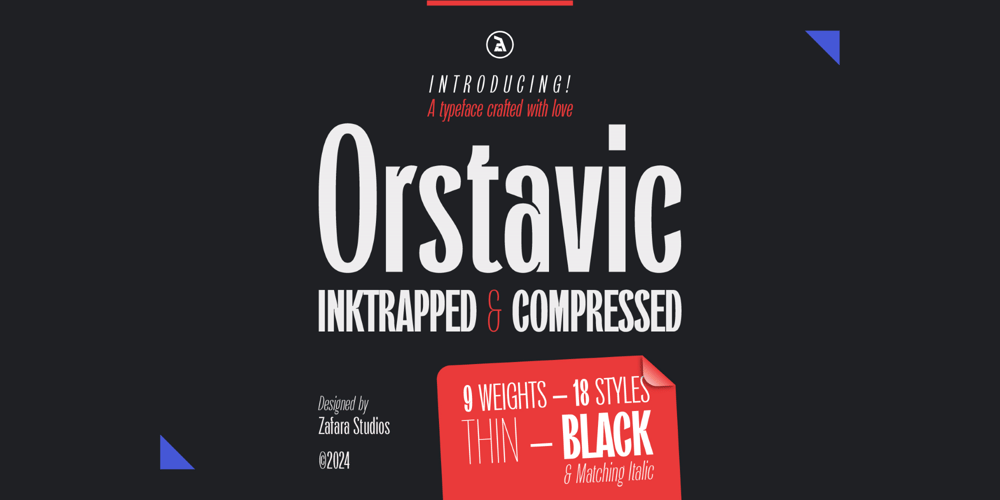
Orstavic Font Family was designed by Zohan Nur Muchlis and published by Zafara Studios. Orstavic contains 18 styles and family package options. Orstavic is a powerful & tall inktrap and compressed font with a modern look for any kind of project. Tall, compressed letterforms can help you stand out to retain attention and appear bold. This font is very suitable for news titles, headlines, logos, websites, print media such as flyers, brochures, magazines, and all kinds of purposes that are suitable for this font.The details:- 214 glyphs: uppercase, lowercase, multilingual, numbers, punctuation, superscript, currency- 9 weight: thin, extralight, light, regular, medium, semibold, bold, extrabold, black- 9 italics- 22 languages: Afrikaans, Albanian, Basque, Danish, Dutch, English, Estonian, Faroese, Filipino, Finnish, French, Galician, Indonesian, Irish, Italian, Malay, Norwegian Bokmål, Portuguese, Spanish, Swahili, Swedish, Zulu